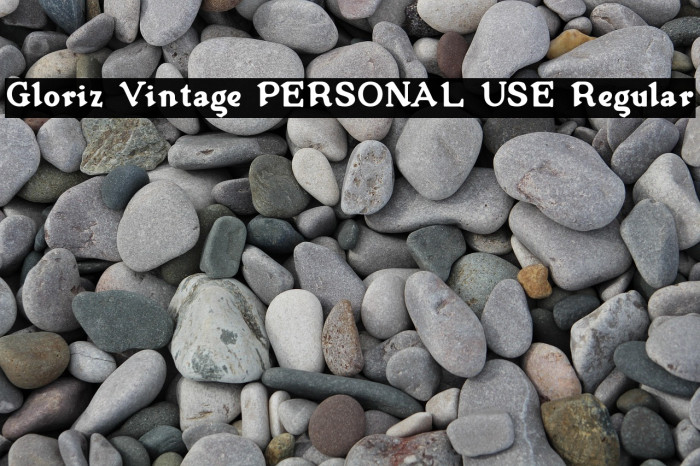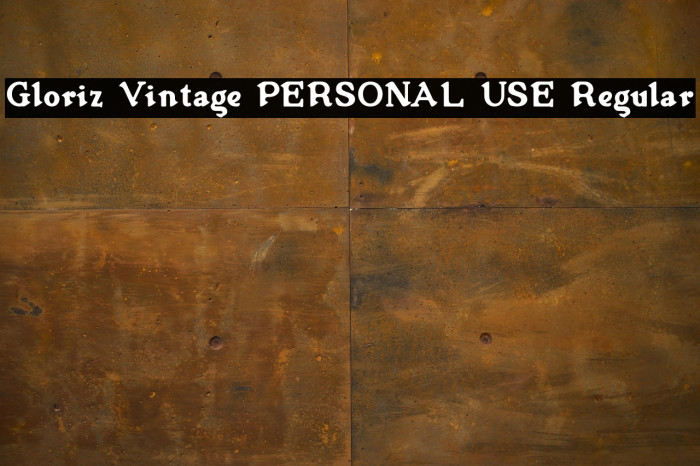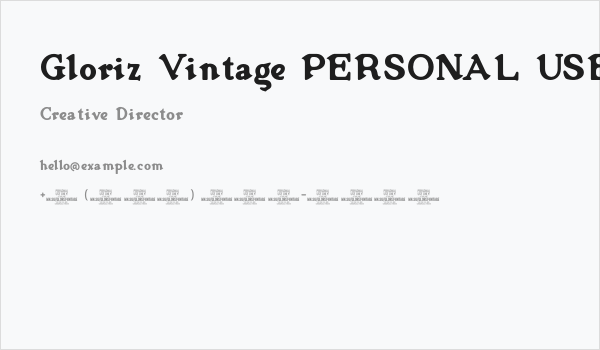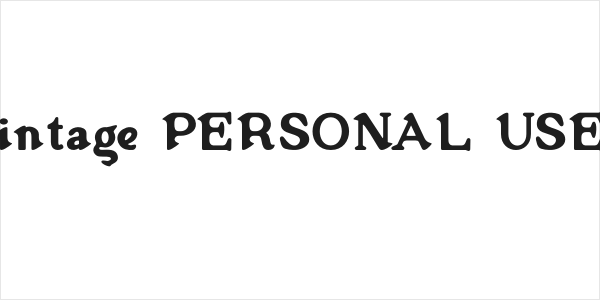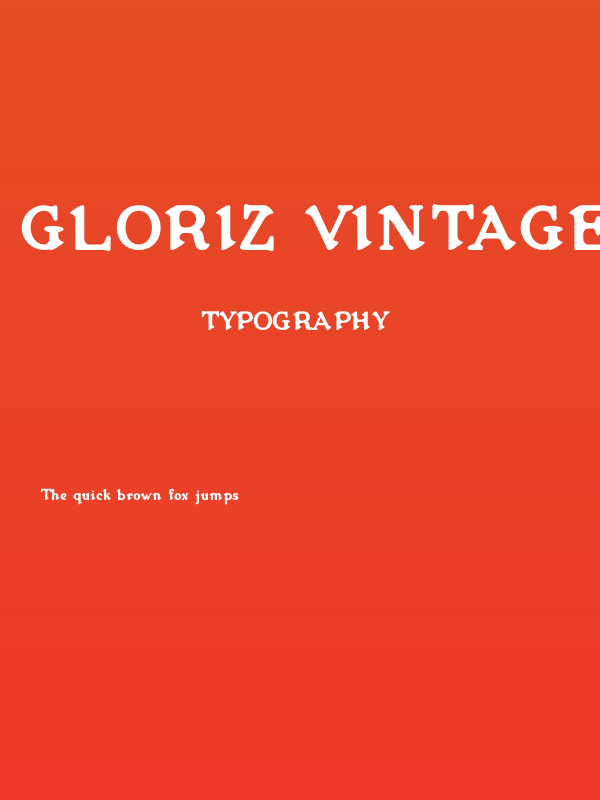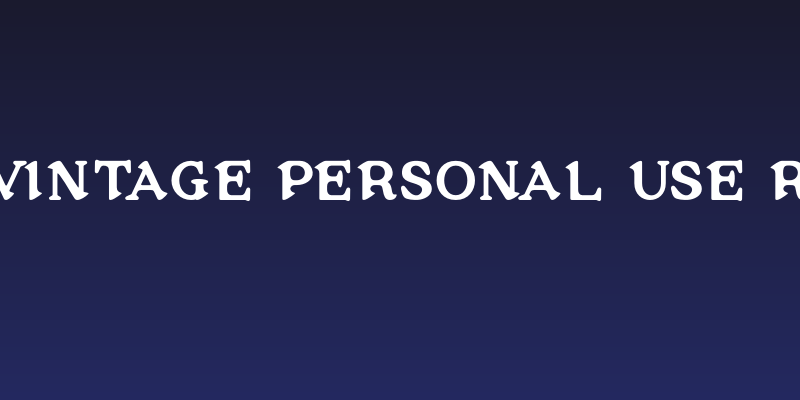
Gloriz Vintage PERSONAL USE Regular Font
Gloriz Vintage PERSONAL USE Regular Description
This font features a vintage and decorative style, characterized by its bold and distinct letterforms. The uppercase letters have a strong presence with unique serifs that add a touch of elegance and historical flair. The lowercase letters maintain a consistent style, complementing the uppercase with their rounded and slightly condensed shapes. The numerals and special characters are designed to match the overall aesthetic, making them suitable for a variety of creative applications. The font's design is reminiscent of classic signage and print styles, offering a nostalgic yet timeless appeal.
| Proposed Projects | Ideal for vintage-themed posters, branding, packaging, and signage that require a touch of historical elegance. |